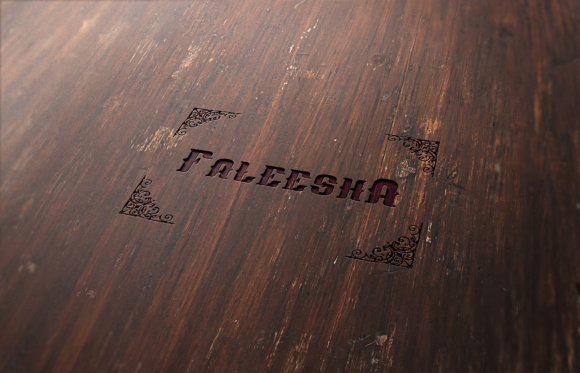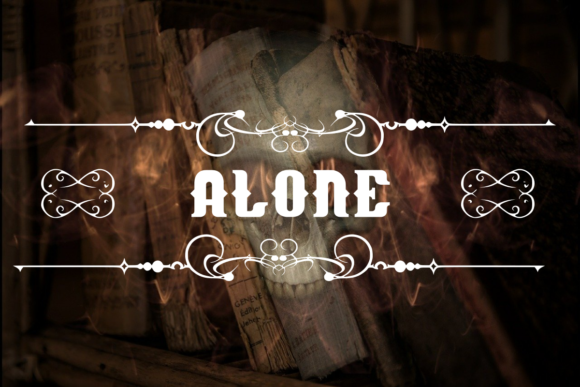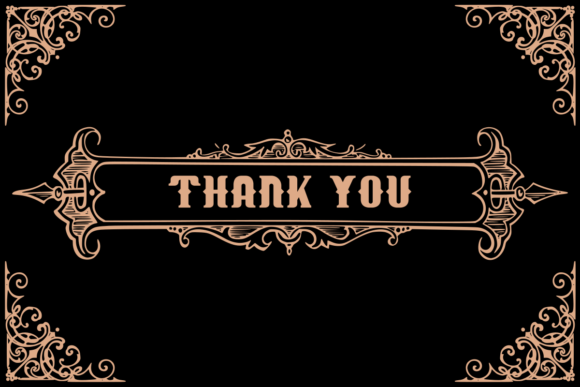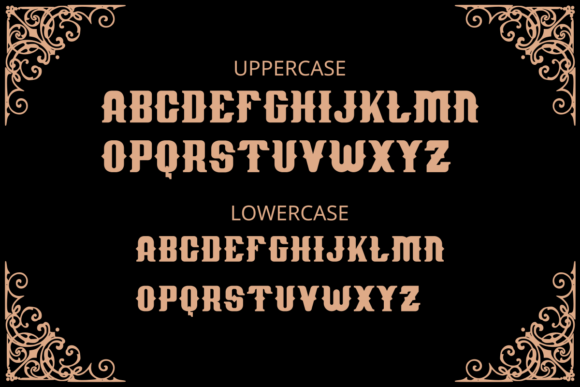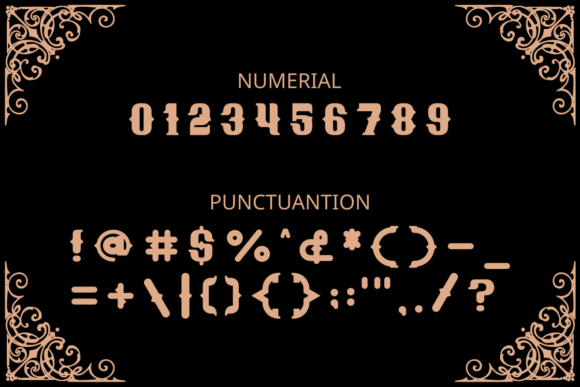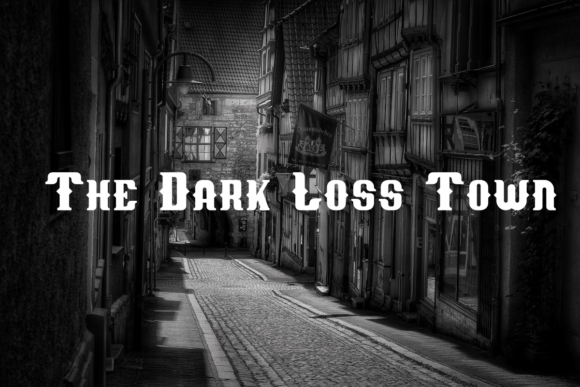
The Perfect Blend of Nostalgia and Elegance: Abhiseva Font
Have you ever stumbled upon an old photograph or a vintage advertisement that instantly transports you to a bygone era? The charm of the past is often characterized by intricate details, elegant typography, and a sense of nostalgia that’s hard to replicate. As designers, we often find ourselves drawn to the beauty of classic designs, and that’s where the Abhiseva Font comes in – a serif font that skillfully captures the essence of a bygone era.
With its playful, nostalgic feel, Abhiseva Font is the perfect addition to any design project that requires a touch of vintage sophistication. Whether you’re working on a retro-themed website, a classic book cover, or a promotional poster, this font is sure to add that special something that sets your design apart from the rest. For designers looking to infuse their work with a sense of history and elegance, the Abhiseva Font is a valuable tool that’s sure to become a favorite.
- Unique Characteristic: The Abhiseva font features a unique blend of traditional and modern design elements, making it a versatile choice for a wide range of applications.
Abhiseva Font Review
I recently had the chance to work with the Abhiseva font, and I must say it’s a beautiful addition to any design project. ✨ The font’s elegant and sophisticated feel makes it perfect for luxury brands or high-end products.
- The Abhiseva font is highly legible, even at smaller font sizes. This makes it ideal for body text or any situation where readability is crucial.
- The font’s unique and intricate design makes it perfect for creating eye-catching headings and titles. The combination of curves and lines adds a level of sophistication that’s hard to find in other fonts.
However, there are a few limitations to consider. ⚠️ The font may not be suitable for projects that require a more playful or casual tone, as its elegance can come across as stuffy or formal.
Overall, I’m impressed with the Abhiseva font. Its beauty and sophistication make it a great choice for designers looking to add a touch of luxury to their projects. With its high legibility and unique design, it’s sure to make a statement.
Tips for Getting the Most Out of Abhiseva Font
Abhiseva Font is a versatile and elegant font that can be used for a variety of applications. Some tips for getting the most out of it include:
- Use it for headings and titles to add a touch of sophistication.
- Pair it with other fonts to create a unique and interesting typography.
Abhiseva Font is commonly used for:
- Book covers and literary projects